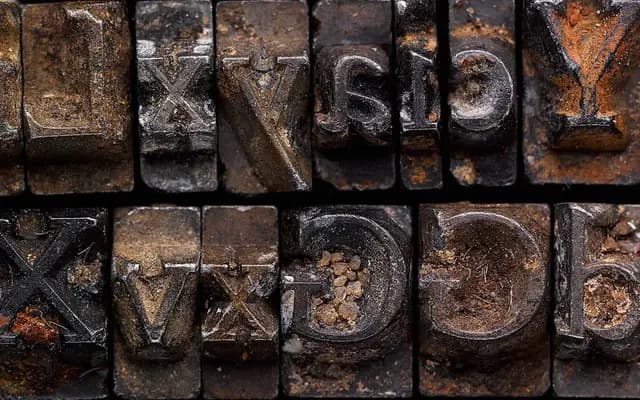
Doves Type Imprint
Typespec · Robert Green · 2016
A painstakingly researched revival of the Doves Press typeface, drawing directly on 151 metal sorts recovered from the River Thames.
Robert Green spent over a decade refining his digital reconstruction of the Doves Type, ultimately recovering original metal sorts from the Thames riverbed in 2014 to use as primary source material. The fourth version splits into two optically adjusted cuts: Doves Text, heavier and softer for body copy below 20pt, and Doves Headline, lighter and sharper for display use, the latter originating from a commission by the Thames Tideway infrastructure project. Extended glyph coverage includes small caps and both lining and tabular figures, with spacing adjusted throughout for contemporary print and screen applications.
The Doves Type is a revival of the historic Doves Press typeface, itself derived from a late 15th-century Venetian model by Nicolas Jenson, placing it firmly in the humanist serif tradition.